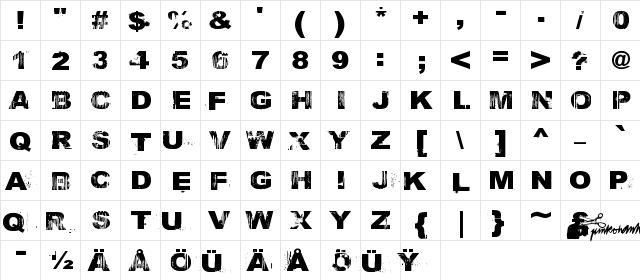
Zilipepp? Regular
Design Context for Zilipepp? Typeface
Zilipepp? is a composed and adaptable typeface that performs quietly and consistently across a wide range of design contexts.